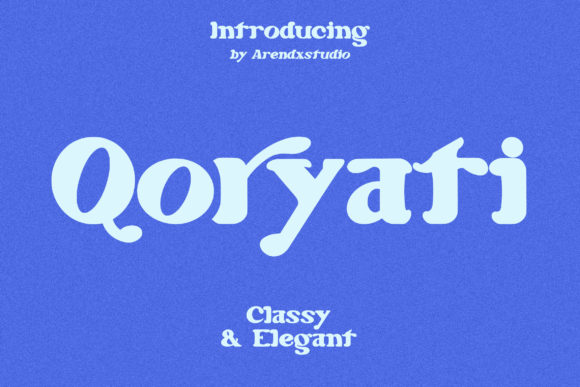
Delve into the enchanting realm of Qoryati, a captivating display font crafted to unveil the essence of captivating narratives. With its intricate curves and bold strokes, Qoryati has emerged as the paragon of literary brilliance, setting the stage for immersive and unforgettable reading experiences.
Immerse yourself in its captivating embrace, where each letter dances with an elegant rhythm, mirroring the poetic cadence of your prose. Its graceful lines evoke the gentle whispers of rustling parchment, beckoning you to weave tales that transcend time. Whether you seek to craft captivating novels, alluring fashion statements, or dazzling editorial designs, Qoryati is your muse, guiding your creative vision to new heights.
Unleash the power of storytelling with Qoryati, a font that transforms mere words into breathtaking tapestries of imagination. Its enchanting aura invites readers to embark on extraordinary journeys, their hearts captivated by the sheer magic woven into each captivating line.
Indulge in the boundless possibilities that await you with Qoryati, a font that transcends the ordinary to become the cornerstone of your literary masterpieces and artistic triumphs. Let its allure captivate your audience, leaving them breathless with anticipation for the enchanting tales that lie ahead.